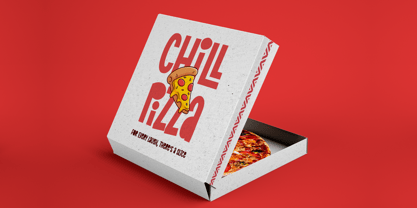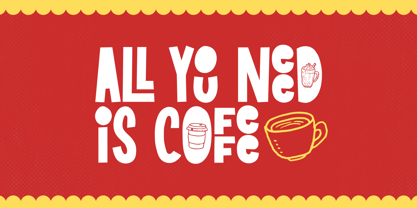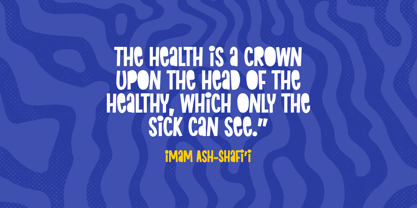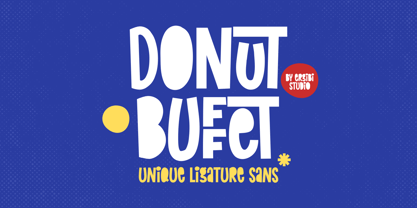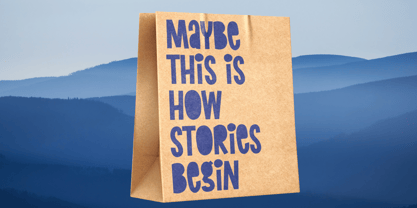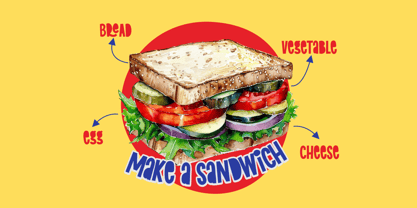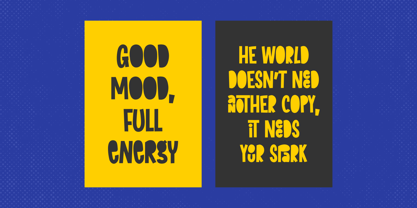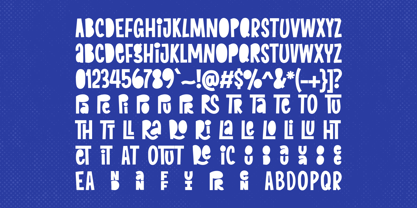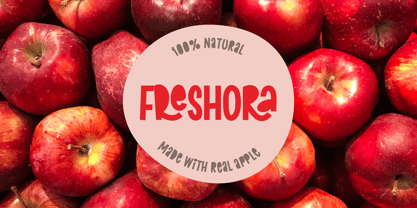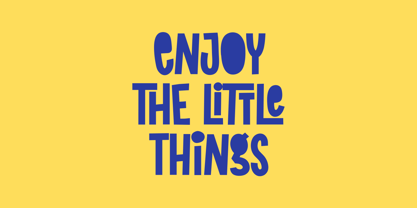
Donut Buffet
by Ergibi Studio
The Donut Buffet Font Family was designed by Riyadh Rahman and published by Ergibi Studio. Donut Buffet contains 1 styles. More about this family
Donut Buffet is a quirky, unique sans ugly font crafted for fun and expressive design projects. Perfect for logotypes, watermarks, posters, branding materials, promotions, product packaging, and more — this font brings an intentionally “ugly” charm to every letterform. Each character is designed with bold and smooth shapes to give your design a touch of chaos and personality. This font is all-caps and includes interesting ligatures. Dive into the previews above for inspiration and unleash your wild side in design. Happy creating! if you have any questions, don’t hesitate to contact us Ergibi Studio
Designers: Riyadh Rahman
Foundry: Ergibi Studio